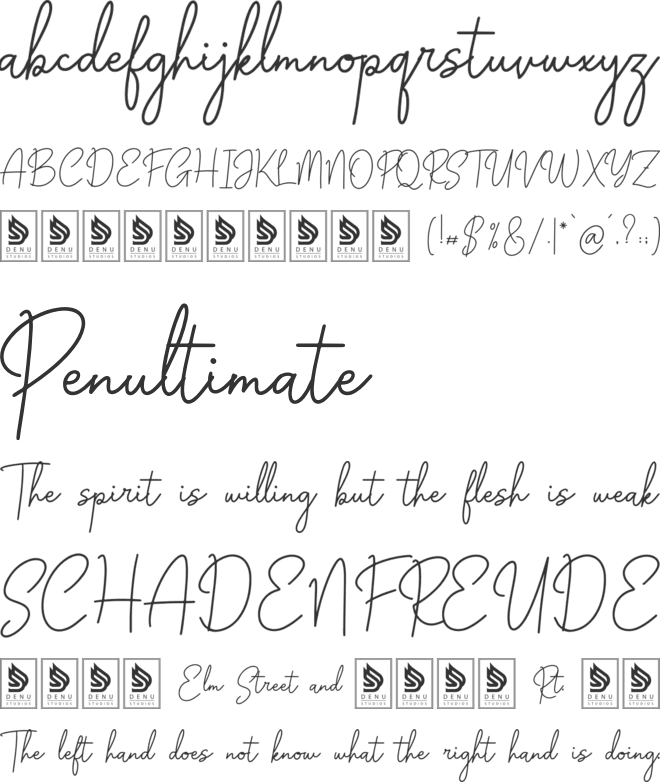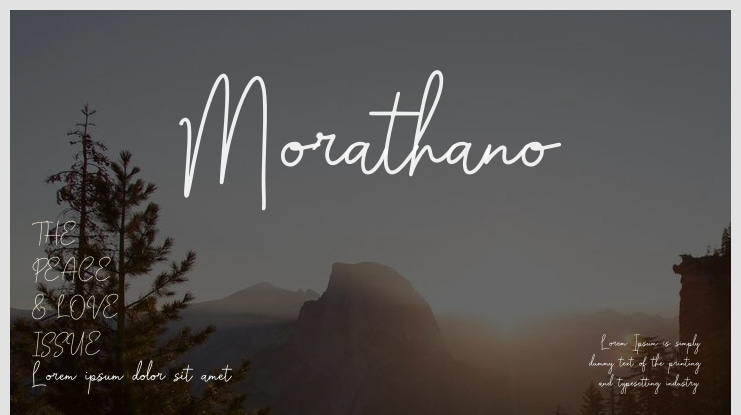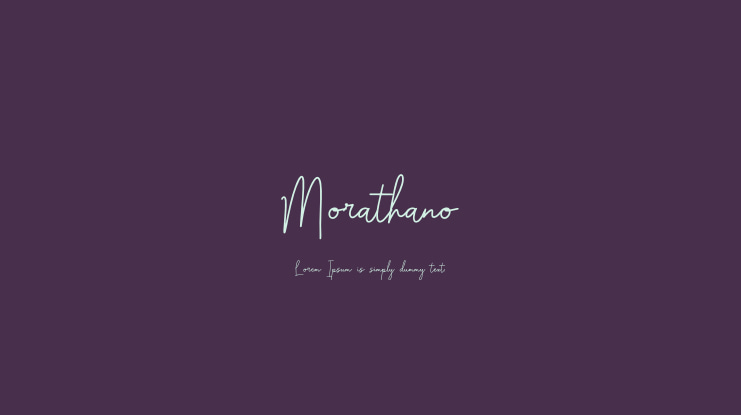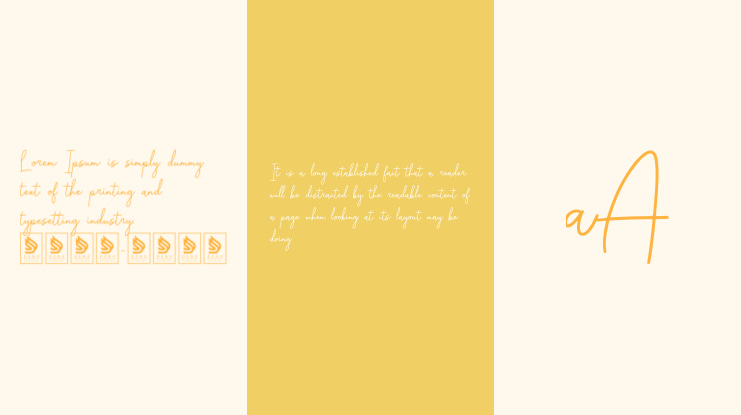
Morathano is a beautiful Monoline Handwritten Font perfect for a variety of projects including logos, branding, product packaging, quotes, posters, and many more. Please note that this demo font is for personal use only, and commercial use is not permitted. To purchase the full version and obtain a commercial license, visit: https://denustudios.com/morathano-monoline-handwritten-font/. For corporate use, a corporate license is required. Custom licenses can be arranged by contacting us at: https://denustudios.com/contact/. Donations are appreciated and can be made through our PayPal account: https://www.paypal.com/paypalme/denustudios. Explore more amazing fonts at our store: https://denustudios.com/. Thank you for your support.
Dengan menggunakan Morathano, Font Handwritten Monoline yang indah ini cocok untuk berbagai proyek termasuk logo, branding, kemasan produk, kutipan, poster, dan lainnya. Perlu diketahui bahwa font demo ini hanya untuk penggunaan pribadi, dan penggunaan komersial tidak diperbolehkan. Untuk membeli versi penuh dan mendapatkan lisensi komersial, kunjungi: https://denustudios.com/morathano-monoline-handwritten-font/. Untuk penggunaan korporat, diperlukan lisensi korporat. Lisensi khusus dapat diatur dengan menghubungi kami di: https://denustudios.com/contact/. Donasi sangat dihargai dan dapat dilakukan melalui akun PayPal kami: https://www.paypal.com/paypalme/denustudios. Jelajahi lebih banyak font menakjubkan di toko kami: https://denustudios.com/. Terima kasih atas dukungannya.